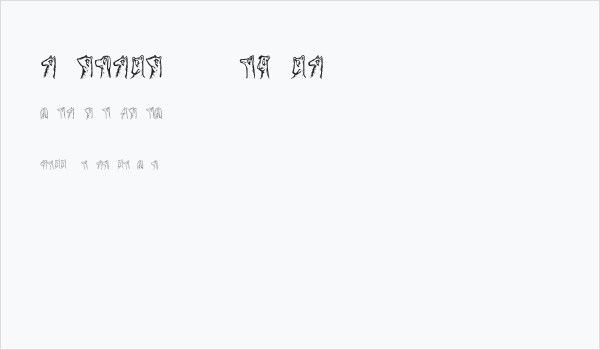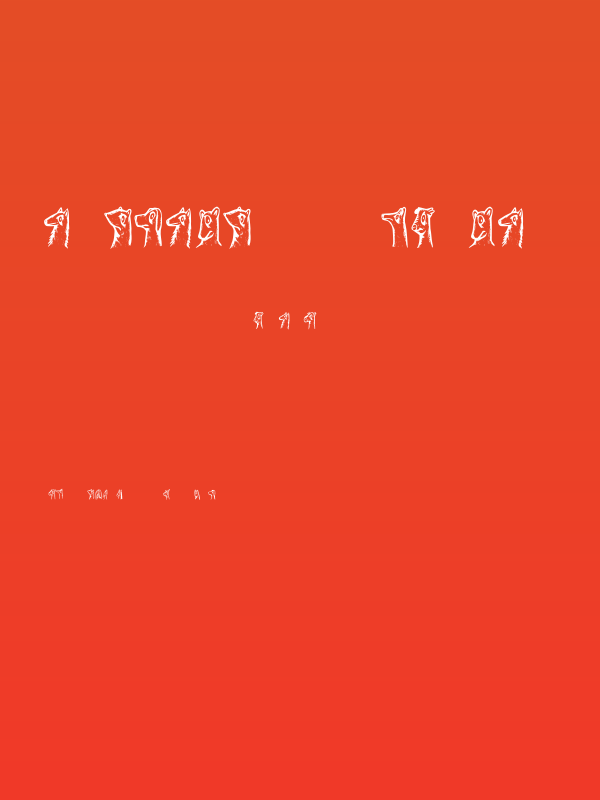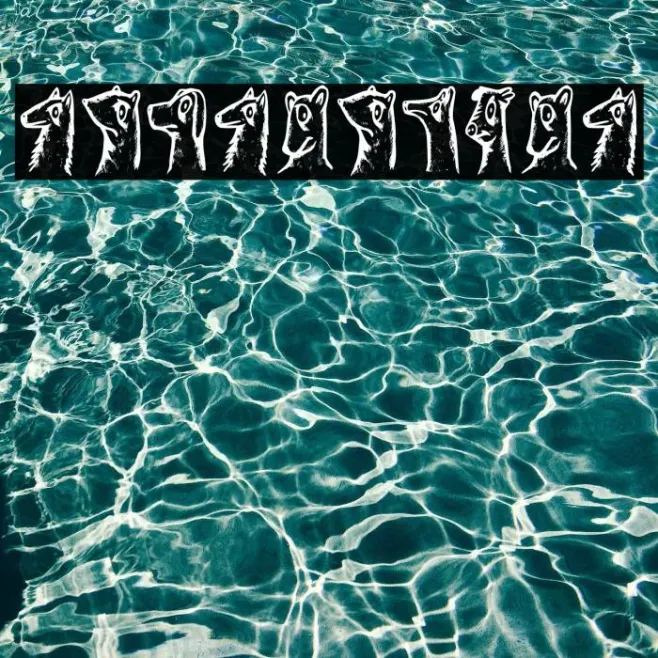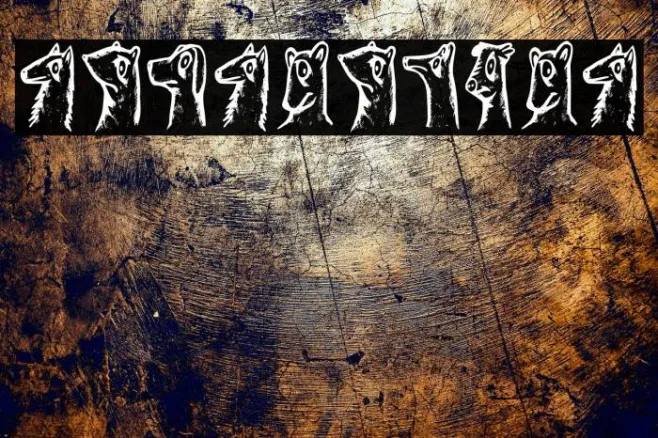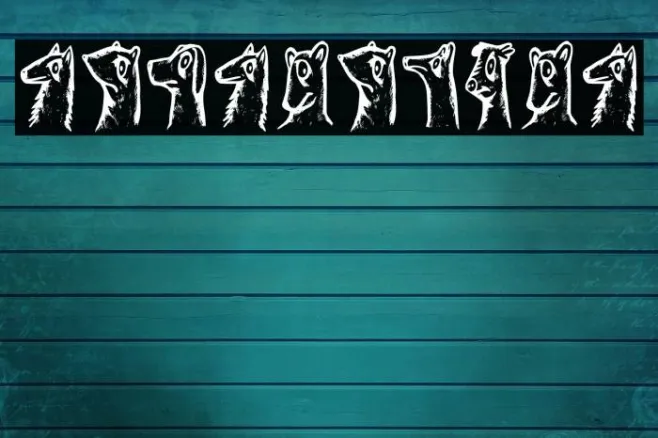
Animality Regular Font
Animality Regular Description
This font is a unique and creative display typeface where each character is represented by an animal head illustration. The design is highly decorative, with each letter crafted to resemble a different animal, giving it a playful and artistic appearance. The characters are detailed, with varying line thicknesses that add depth and texture. This font is ideal for projects that require a whimsical or nature-inspired theme. The artistic style of the font makes it stand out, capturing attention with its imaginative and lively character representations.
| Use Case | Logos, Posters, Creative projects |
| Proposed Projects | Ideal for children's books, animal-themed posters, creative branding, and educational materials. |